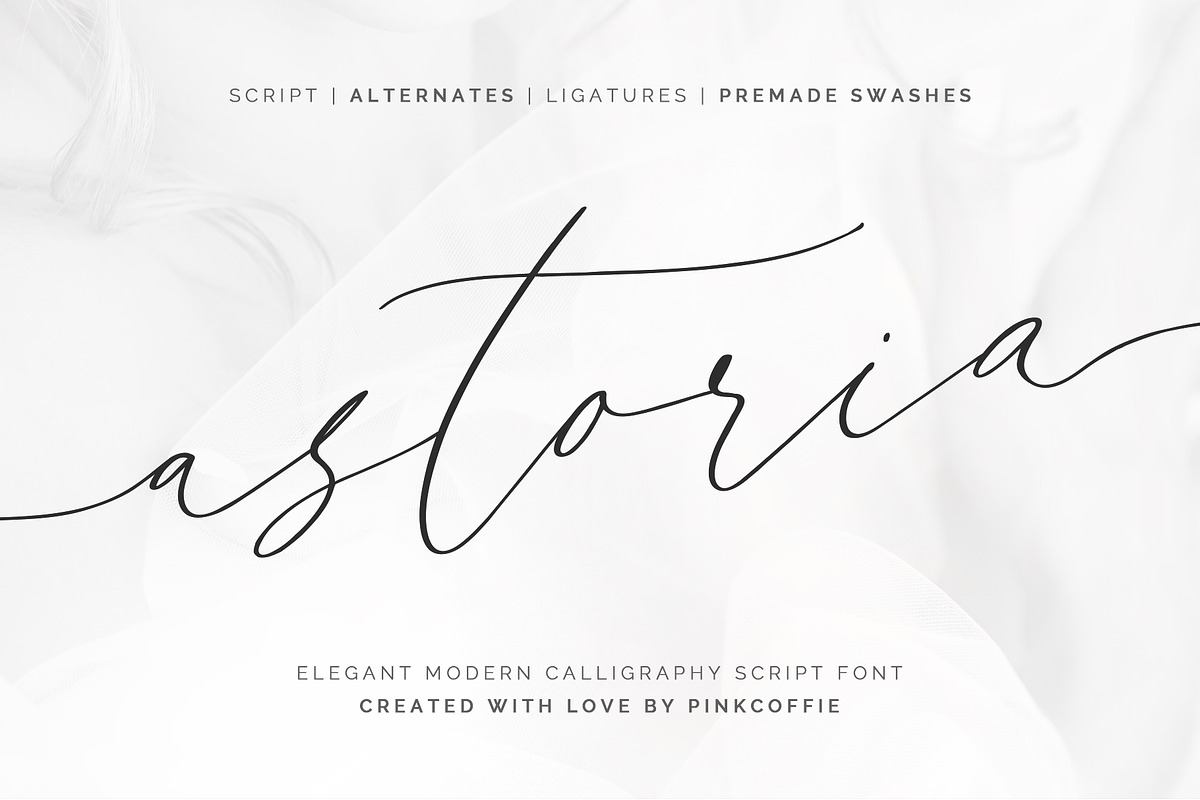
Astoria | Modern Calligraphy Script Font Free Download
Astoria | Modern Calligraphy Script Font Free Download is an elegant and sophisticated typeface that blends modern calligraphy with graceful, flowing letterforms. Its smooth curves and stylish swashes make it perfect for high-end branding, wedding invitations, greeting cards, social media graphics, and any creative project that needs a touch of refinement and personal charm.
Astoria captures the elegance of handwritten calligraphy, while its contemporary design ensures it remains stylish and versatile for a variety of design needs. Whether you're designing a logo, creating invitations, or crafting promotional materials, this font adds a beautiful, bespoke touch to your typography.